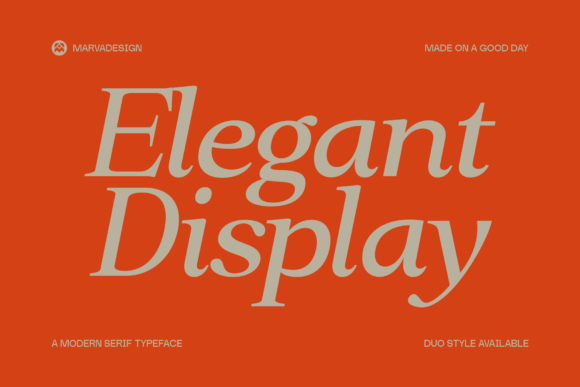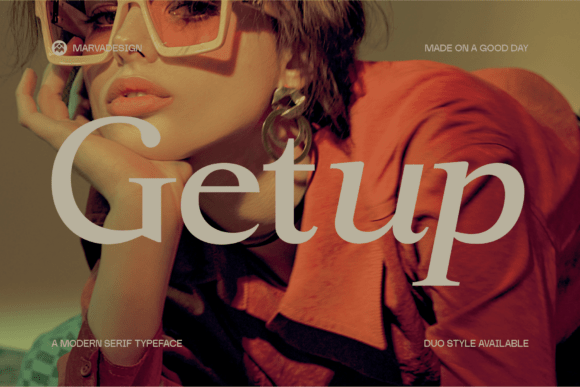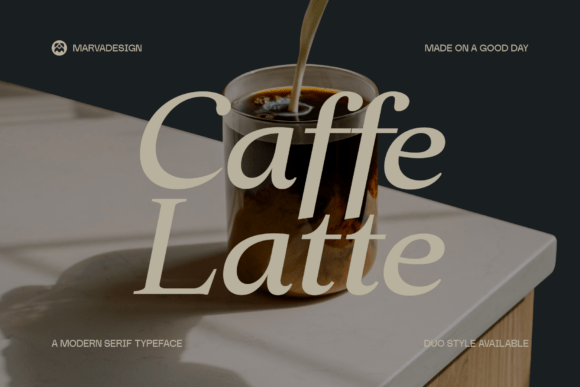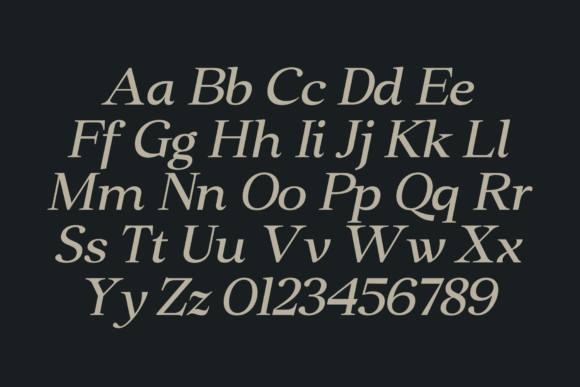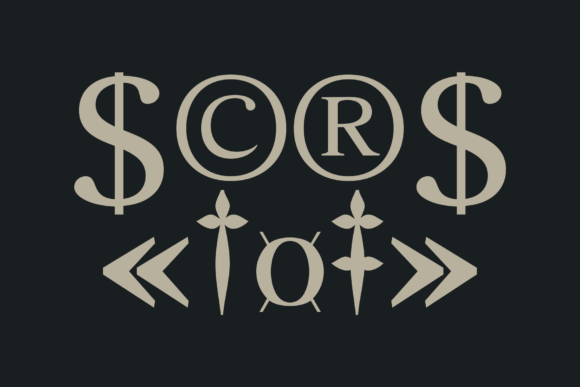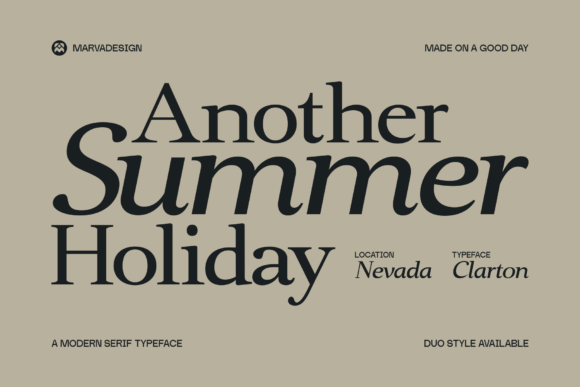
Introducing Clarton Font: Elevate Your Designs with Elegance and Sophistication
In the world of typography, fonts play a crucial role in conveying the tone and personality of a brand or design. For designers and crafters seeking a typeface that exudes luxury, modernity, and timelessness, Clarton Serif is an exceptional choice. This modern serif typeface is meticulously crafted to bring an air of elegance and sophistication to any project, making it perfect for luxury branding, editorial layouts, magazine headlines, and more.
Key Features of Clarton Serif
Clarton Serif boasts several distinctive features that set it apart from other typefaces. Its high contrast between thick and thin strokes creates a visually striking effect, while its graceful curves and sharp yet refined serifs add a touch of refinement. These characteristics make Clarton Serif an ideal choice for designs that demand a strong visual presence.
- High Contrast Strokes: The significant contrast between thick and thin strokes in Clarton Serif adds depth and elegance to the text, making it perfect for luxury brands and high-end designs.
- Graceful Curves: The smooth, flowing curves of Clarton Serif contribute to its sophisticated and modern feel, enhancing the overall aesthetic of any design.
- Refined Serifs: The sharp yet refined serifs of Clarton Serif provide a crisp and clean look, making it suitable for editorial layouts, magazine headlines, and other designs where clarity is paramount.
The Power of Natural Italic Style
One of the standout features of Clarton Serif is its natural italic style. This style adds a sense of motion and expressive rhythm to the text, making it more engaging and dynamic. The natural italic style of Clarton Serif is carefully crafted to complement the upright version, providing a cohesive and harmonious look that enhances the overall flow of the text.
Whether you’re designing a luxury brand’s website, a magazine headline, or an editorial layout, the natural italic style of Clarton Serif can add a touch of elegance and sophistication. It’s perfect for designs that require a bit of flair and personality, without compromising on readability and clarity.
Well-Balanced Uppercase and Lowercase Characters
Clarton Serif features well-balanced uppercase and lowercase characters, making it ideal for display purposes and short-form text that demands a strong visual presence. The font’s balanced design ensures that both uppercase and lowercase letters are visually appealing and easy to read, even at smaller sizes.
This makes Clarton Serif a versatile typeface that can be used for a wide range of design applications, from luxury branding and editorial layouts to magazine headlines and packaging design.
PUA Encoding for Seamless Access to Stylistic Features
Clarton Serif supports PUA (Private Use Area) encoding, providing seamless access to its full library of stylistic features. This means that designers can easily access and utilize the font’s various features, such as ligatures, stylistic alternates, and swashes, to create unique and customized designs.
Design Applications for Clarton Serif
Clarton Serif is a versatile typeface that can be used for a wide range of design applications, including:
- Luxury Branding: Clarton Serif’s elegant and sophisticated design makes it perfect for luxury brands looking to create a high-end visual identity.
- Editorial Layouts: The font’s refined serifs and high contrast strokes make it suitable for editorial layouts, such as magazines, newspapers, and books.
- Magazine Headlines: Clarton Serif’s bold and eye-catching design makes it ideal for magazine headlines, adding a touch of elegance and sophistication to any publication.
- Packaging Design: The font’s versatility and range of stylistic features make it suitable for packaging design, where a strong visual presence is often required.
Clarton Serif is a modern serif typeface that embodies elegance, sophistication, and contemporary flair. Its high contrast strokes, graceful curves, and refined serifs make it perfect for luxury branding, editorial layouts, magazine headlines, and any design that seeks a timeless aesthetic. With its natural italic style, well-balanced uppercase and lowercase characters, and PUA encoding, Clarton Serif is an exceptional choice for designers and crafters looking to elevate their designs.
Whether you’re designing a luxury brand’s website, a magazine headline, or an editorial layout, Clarton Serif is a versatile typeface that can add a touch of elegance and sophistication to any project. Its range of stylistic features and compatibility with various devices and platforms make it easy to incorporate into your design workflow.
Discover the power of Clarton Serif and take your designs to the next level with its elegance, sophistication, and timeless aesthetic.